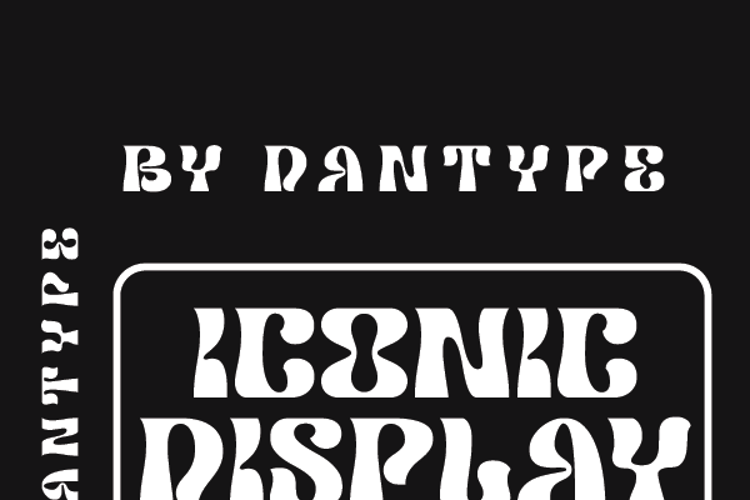
Iconic Display Font
Iconic Display Font - This font would be perfect for photography, watermarks, social media posts, advertisements, logos & branding, invitations, product design, labels, stationery, product packaging, special events, and other projects. This font is PUA encoded which means you can access all glyphs with ease!